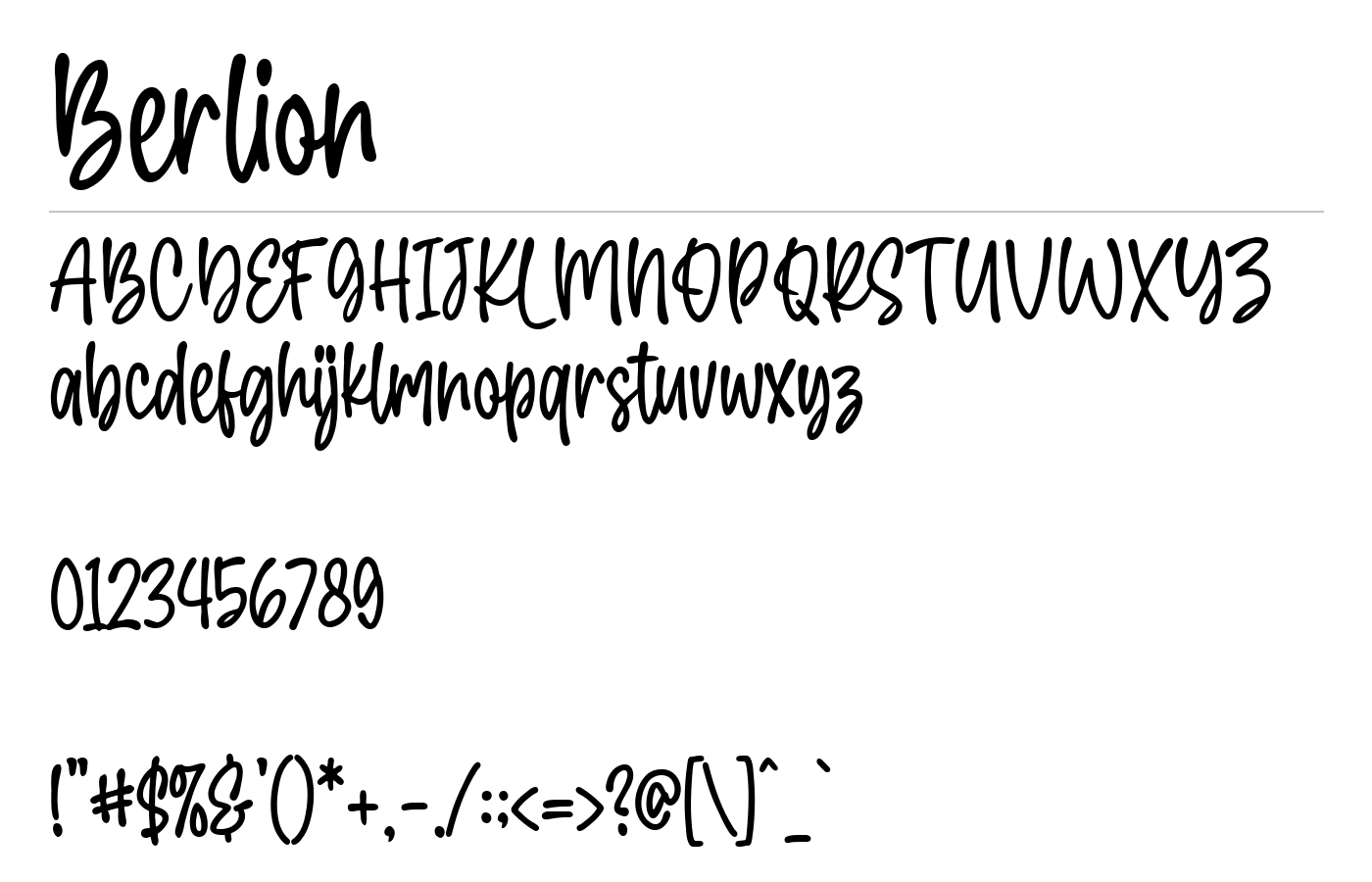
Berlion is a playful, handwritten script font with a casual, friendly feel. Its lively, slightly uneven strokes and rounded shapes give it an inviting, personal touch perfect for informal branding, social media, or creative projects needing a warm, approachable style. This font works especially well in designs aiming to convey authenticity and cheerfulness.
Berlion Font
About Berlion Font
| Font family | Berlion Font |